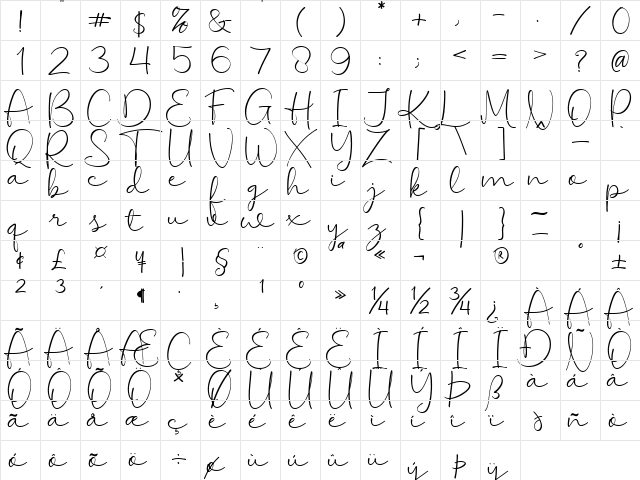
Timeless Wonderland Regular Free Font
Timeless Wonderland Regular
Designer: Rinaldo Hasibuan
Design Context for Timeless Wonderland
Timeless Wonderland is a composed and adaptable typeface that performs quietly and consistently across a wide range of design contexts.